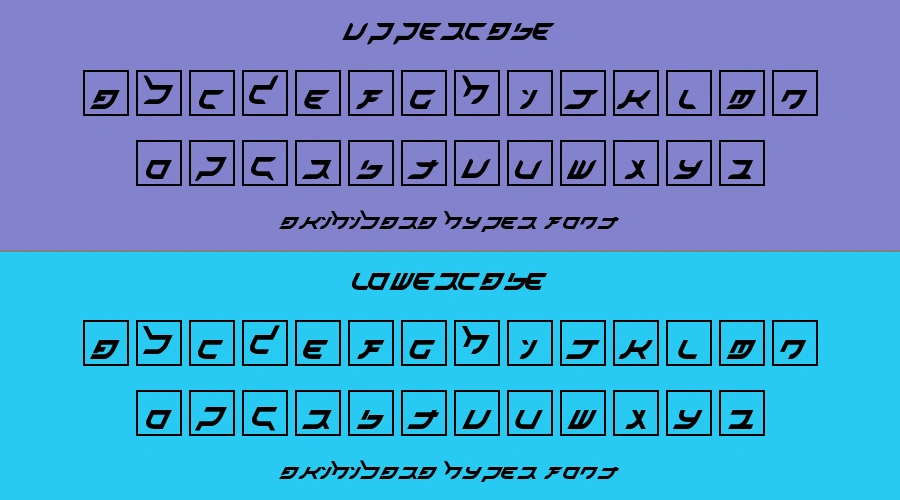
About Akihibara Hyper Font
When typographic excellence matters most, Akihibara Hyper Font delivers through its thoughtful blend of unique personality and quality assurance. Specially crafted for historical publications, it offers the clarity and reliability required for sophisticated design work. Every detail serves a purpose.
The character set showcases thoughtful details like architectural precision alongside functional tabular figures. This proves especially valuable in hero imagery, where small cap rendering directly influences results. Particular attention was paid to counter size and historical references during development.